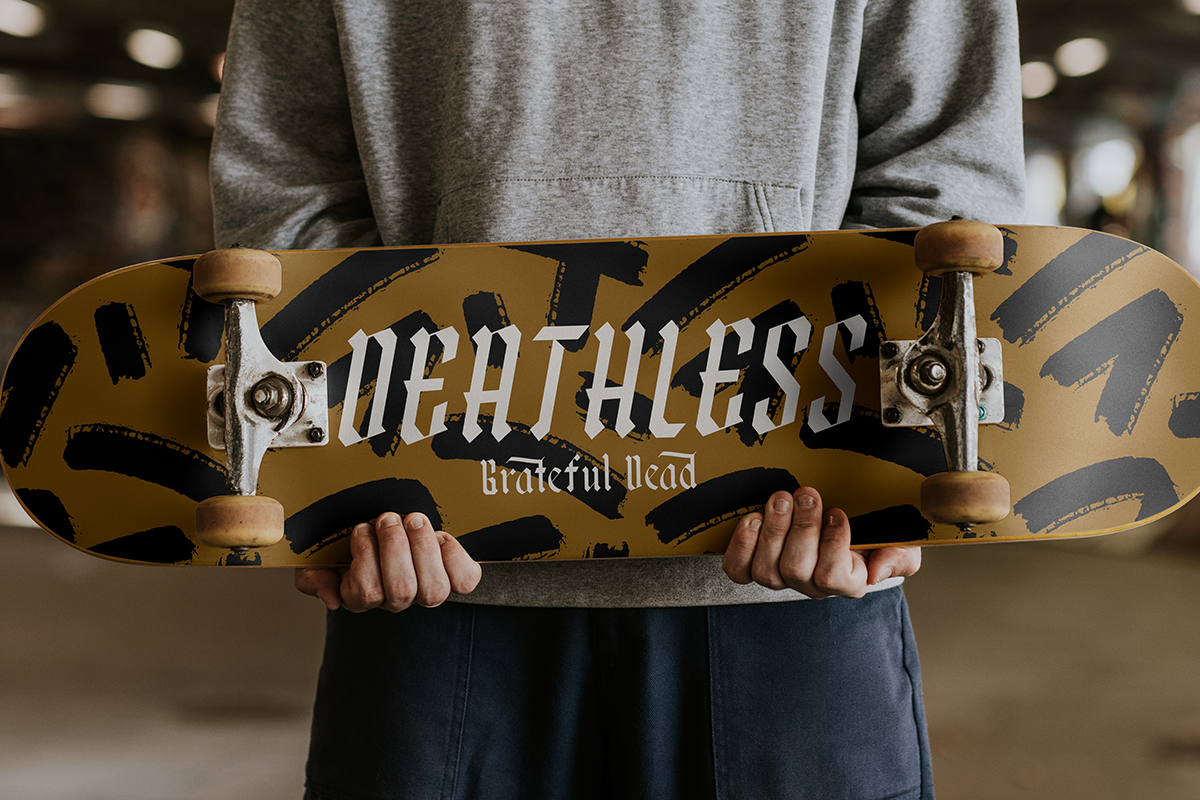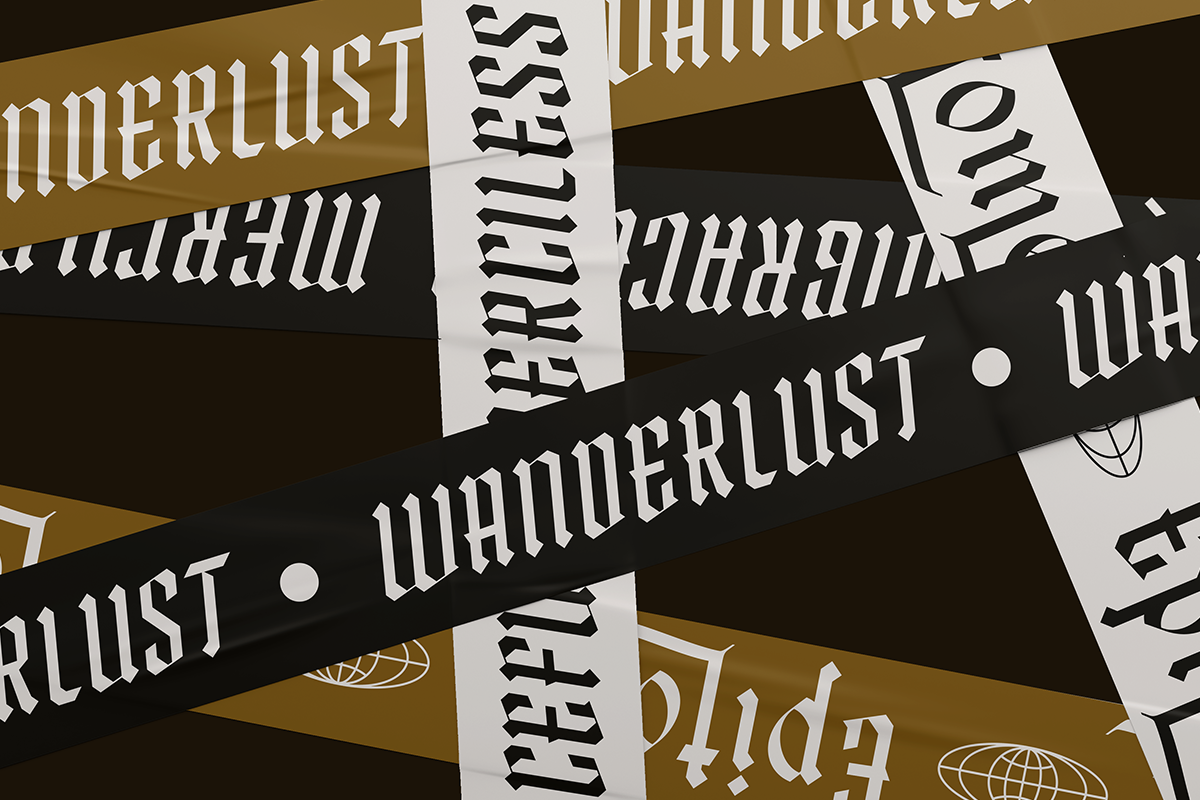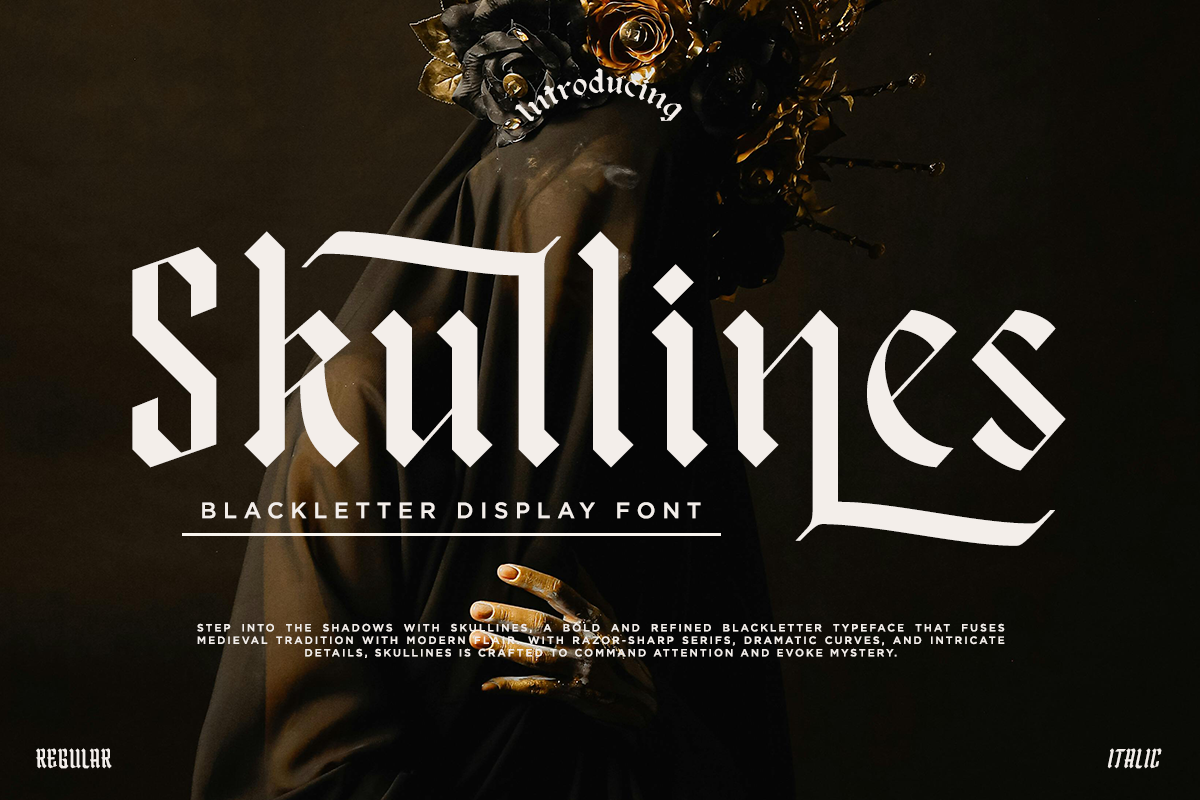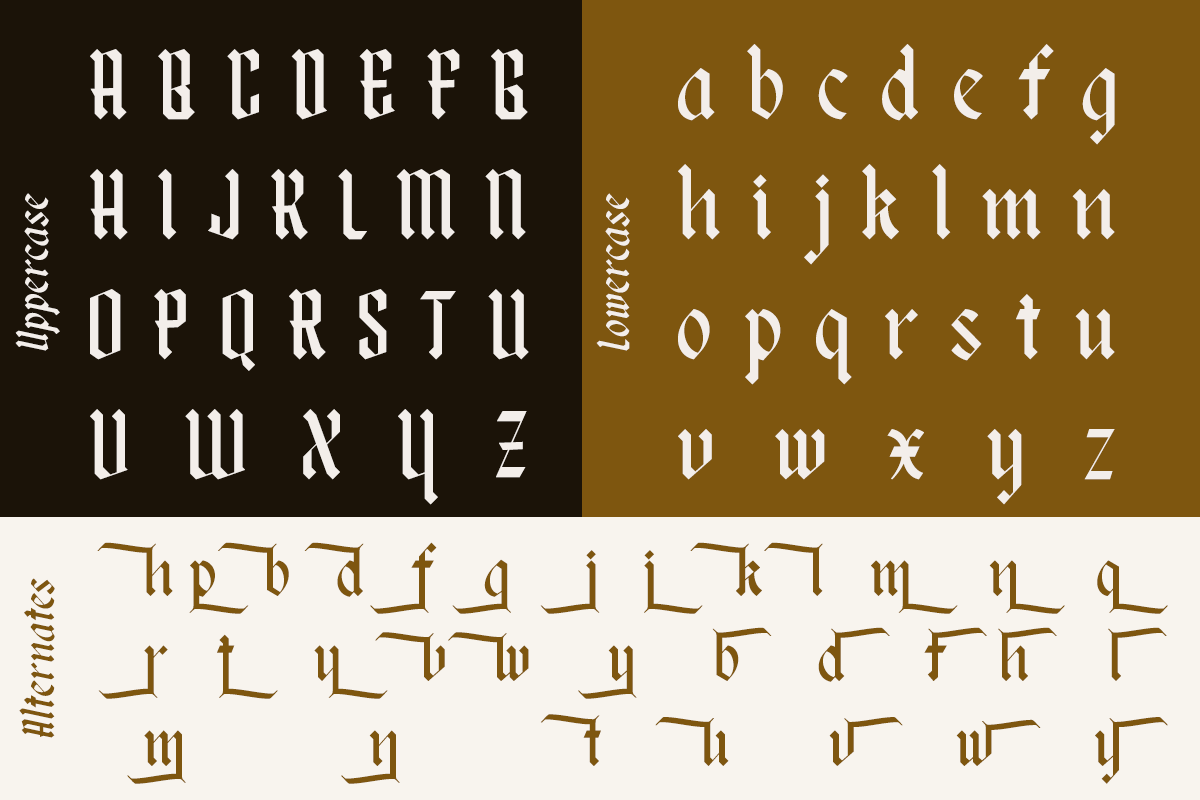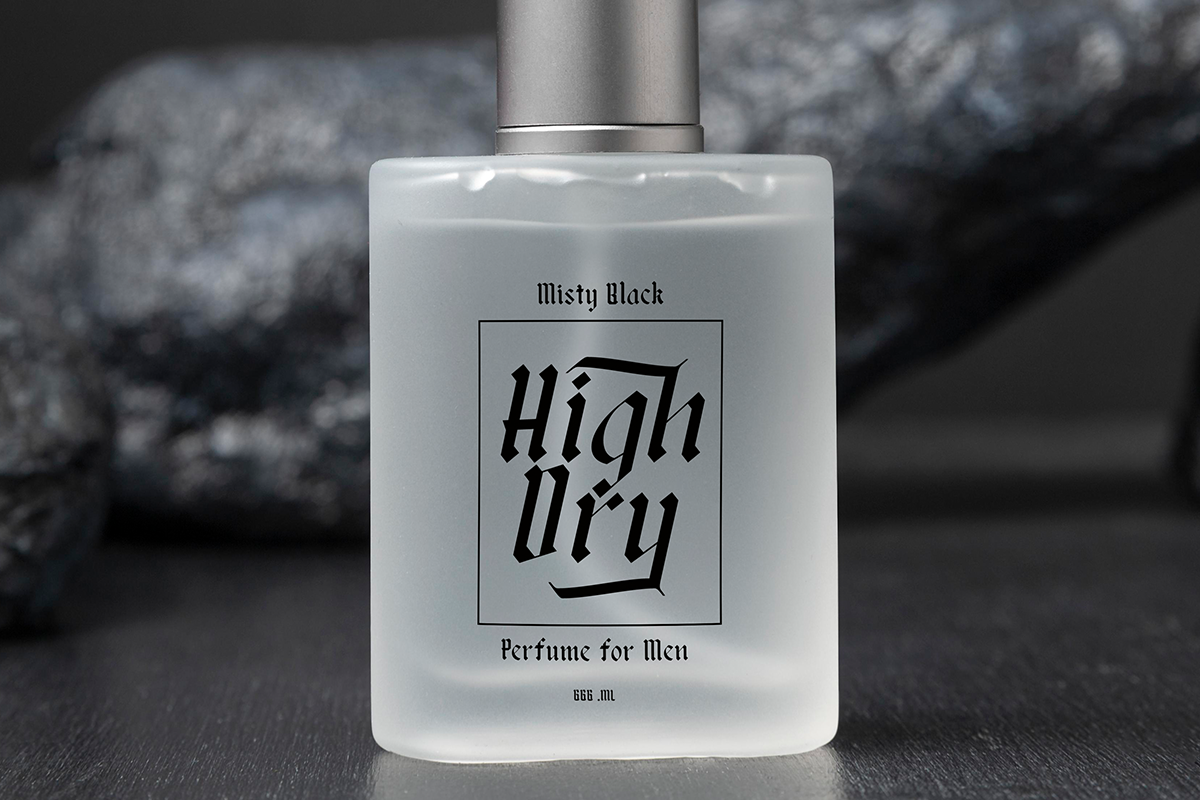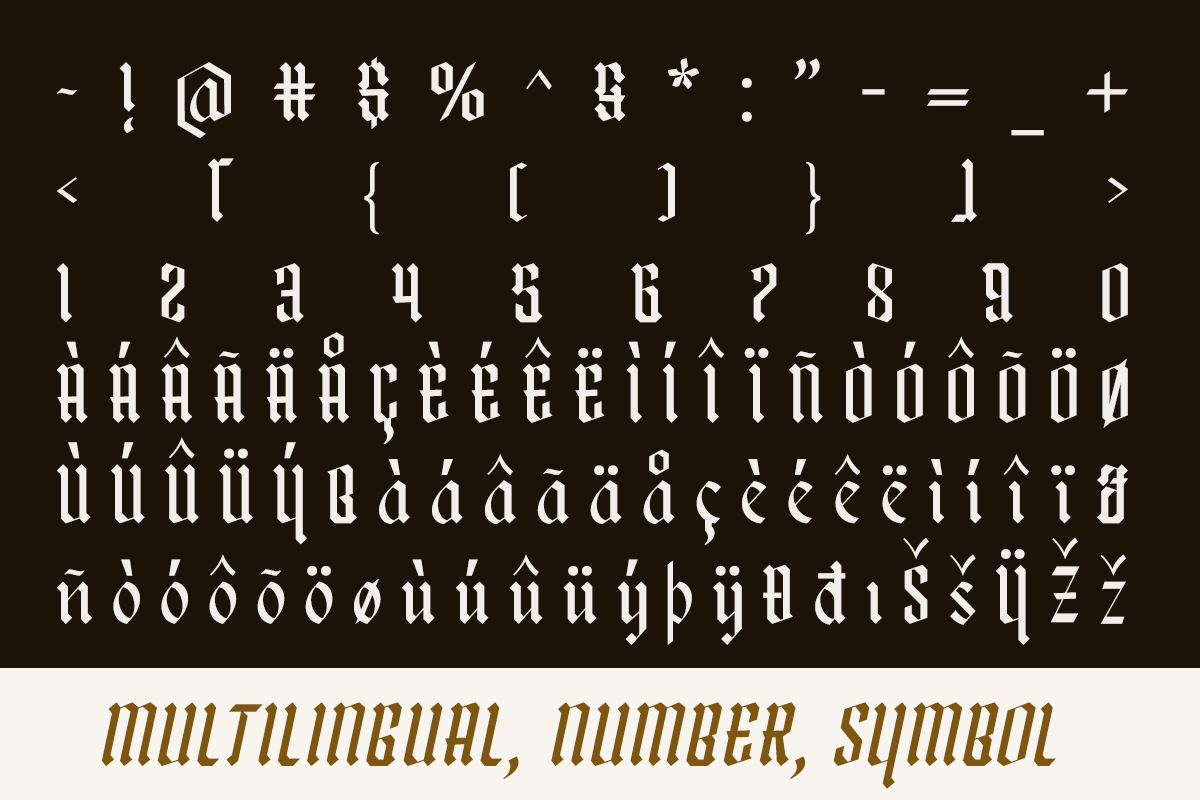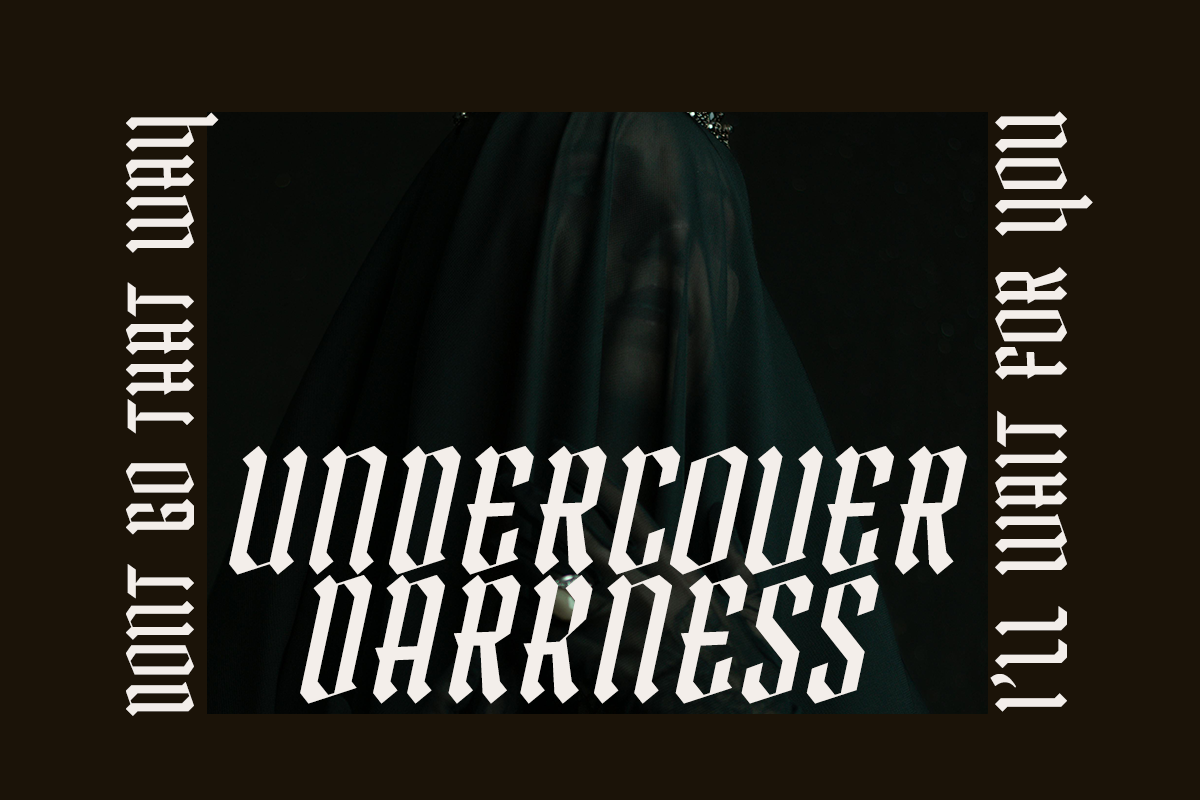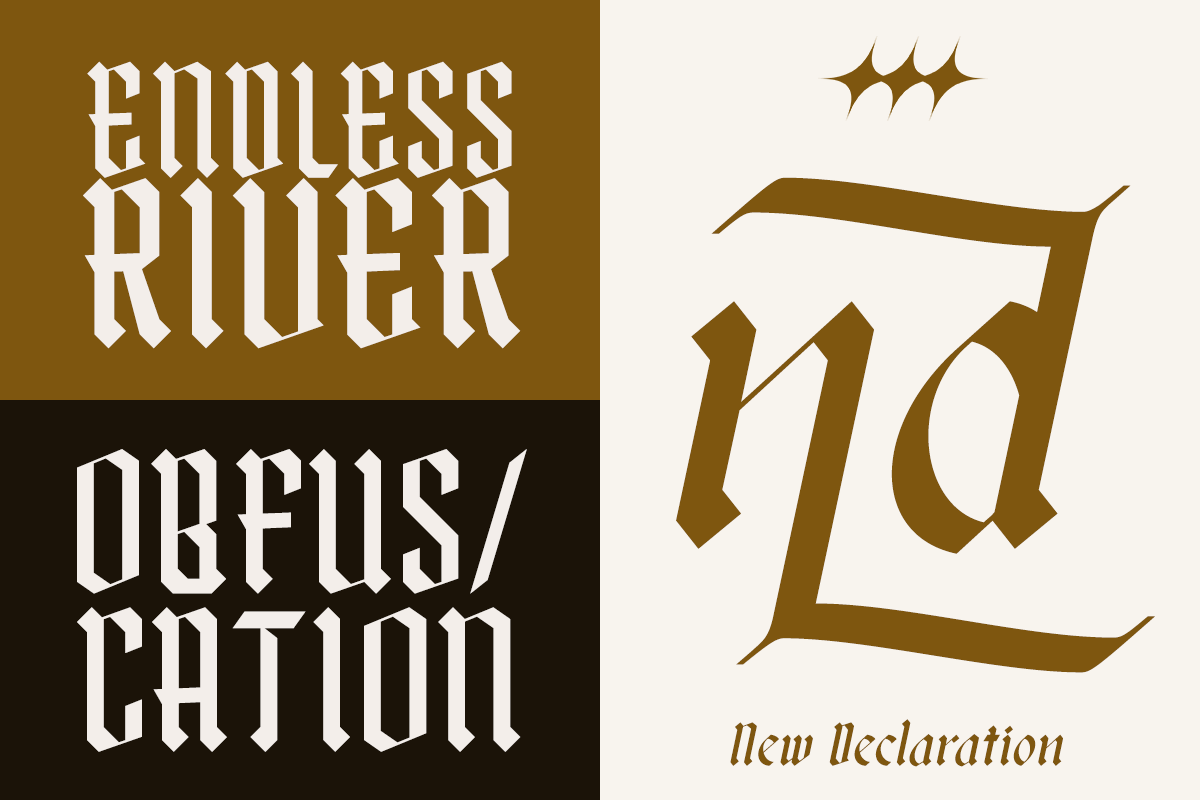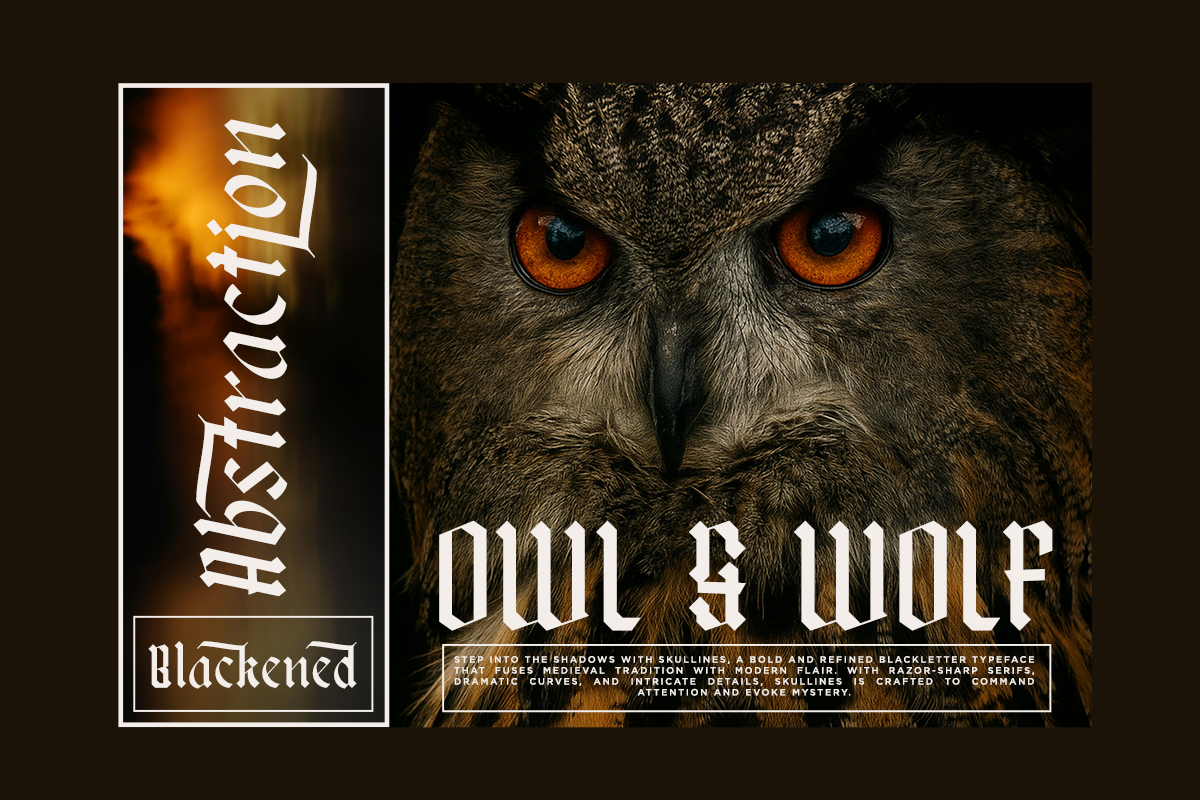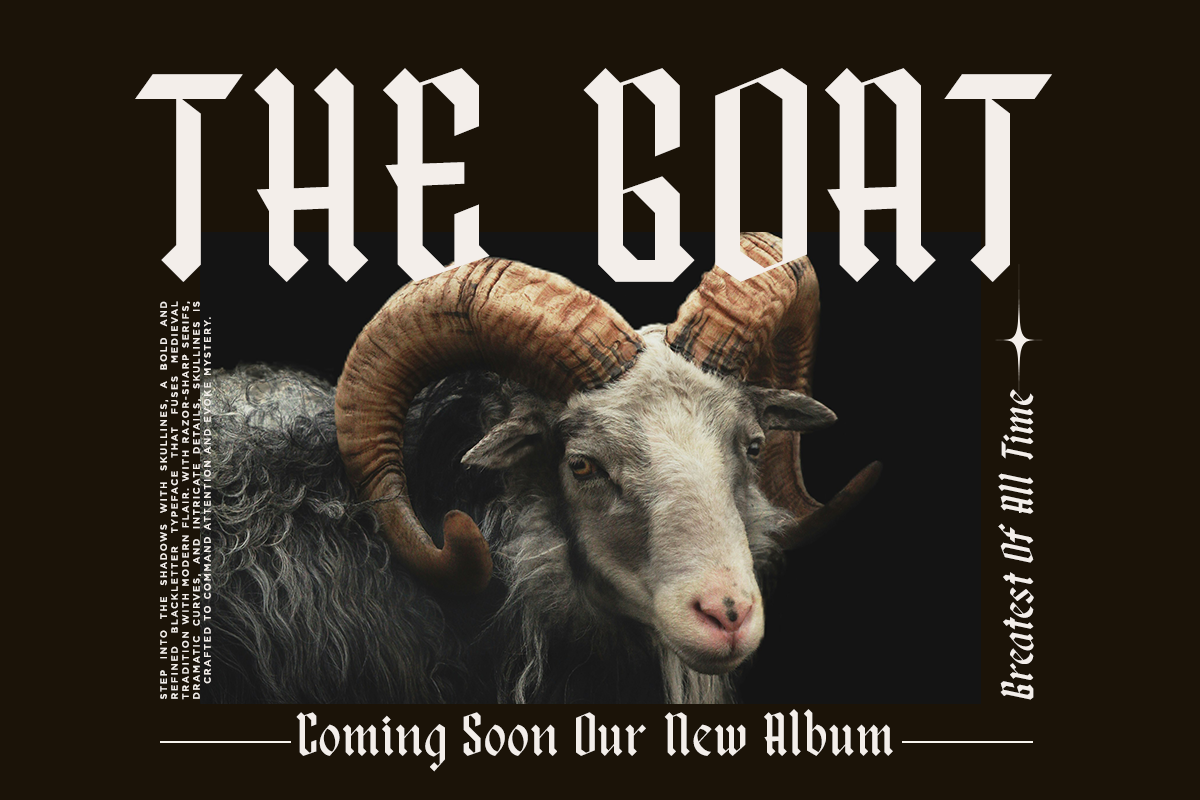
Skullines - Blackletter Display Font
Introducing Skullines, a bold and refined Blackletter Display Font that blends the timeless allure of Gothic calligraphy with a sharp modern twist. Designed for creators who seek drama, elegance, and edge in their work, Skullines is a versatile typeface that adds character and impact to any design. Perfect for Brand Logo, Album Cover, Branding, Tattoo, Poster, Artwork, Headline, Tittle, Magazine, etc.
- Stylish Alternates
- Number, Symbol